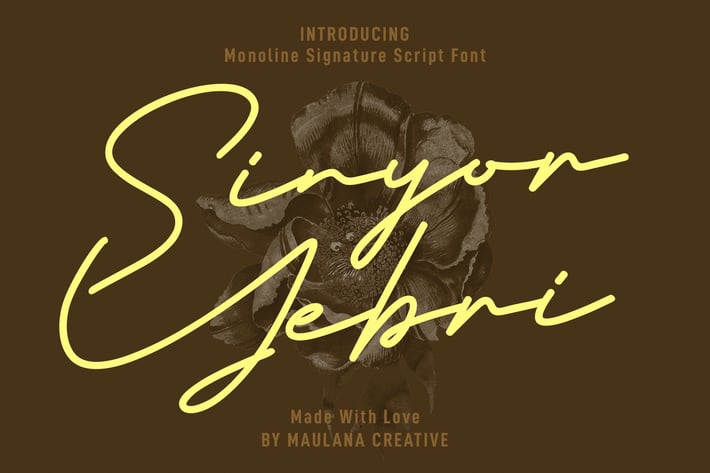
Sinyor Yebri Signature Script Font
Sinyor Yebri is a modern signature script font. With consist regular mono-line stroke, fun character. To give you an extra creative work. Sinyor Yebri font support multilingual more than 100+ language. This font is good for logo design, Social media, Movie Titles, Books Titles, a short text even a long text letter and good for your secondary text font with sans or serif. Make a stunning work with Sinyor Yebri font.